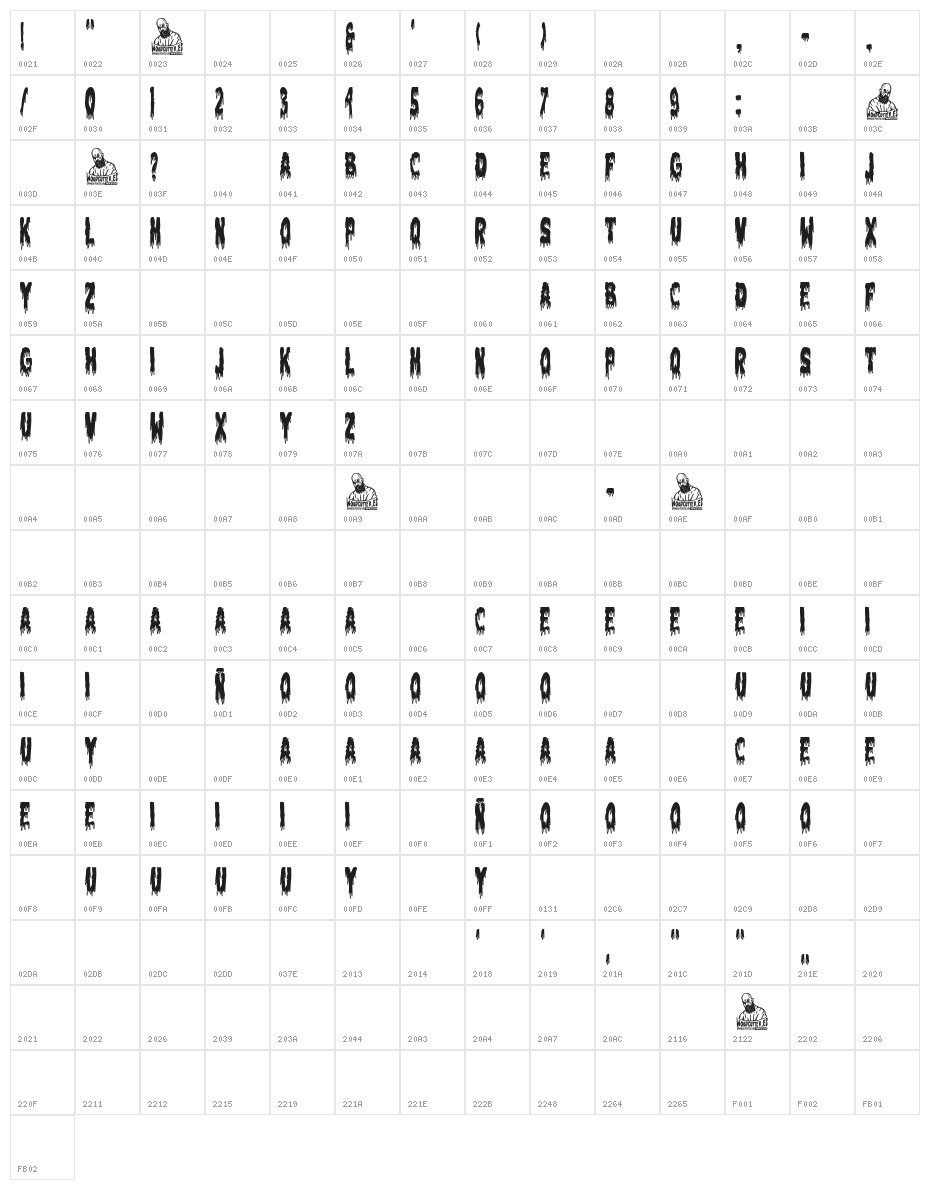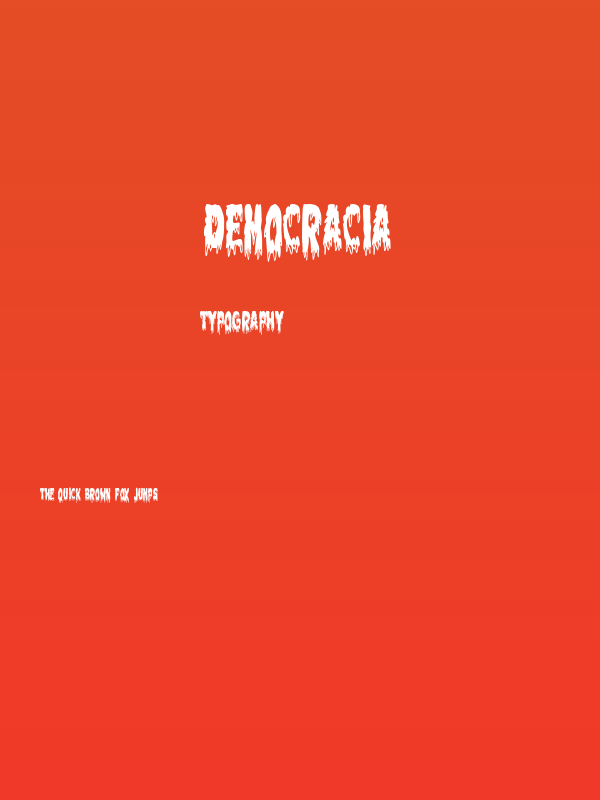
Democracia Font
Democracia Description
A bold, uppercase decorative font with a dripping, melting effect on each character, evoking a horror or Halloween theme. The edges are irregular and organic, giving a sense of movement and unease.
| Overall Style | Decorative, Horror, Thematic |
| Use Case | Headlines, Posters, Event Titles, Logos |
| Proposed Projects | Halloween posters, horror movie titles, haunted house flyers, spooky event branding, themed party invitations. |